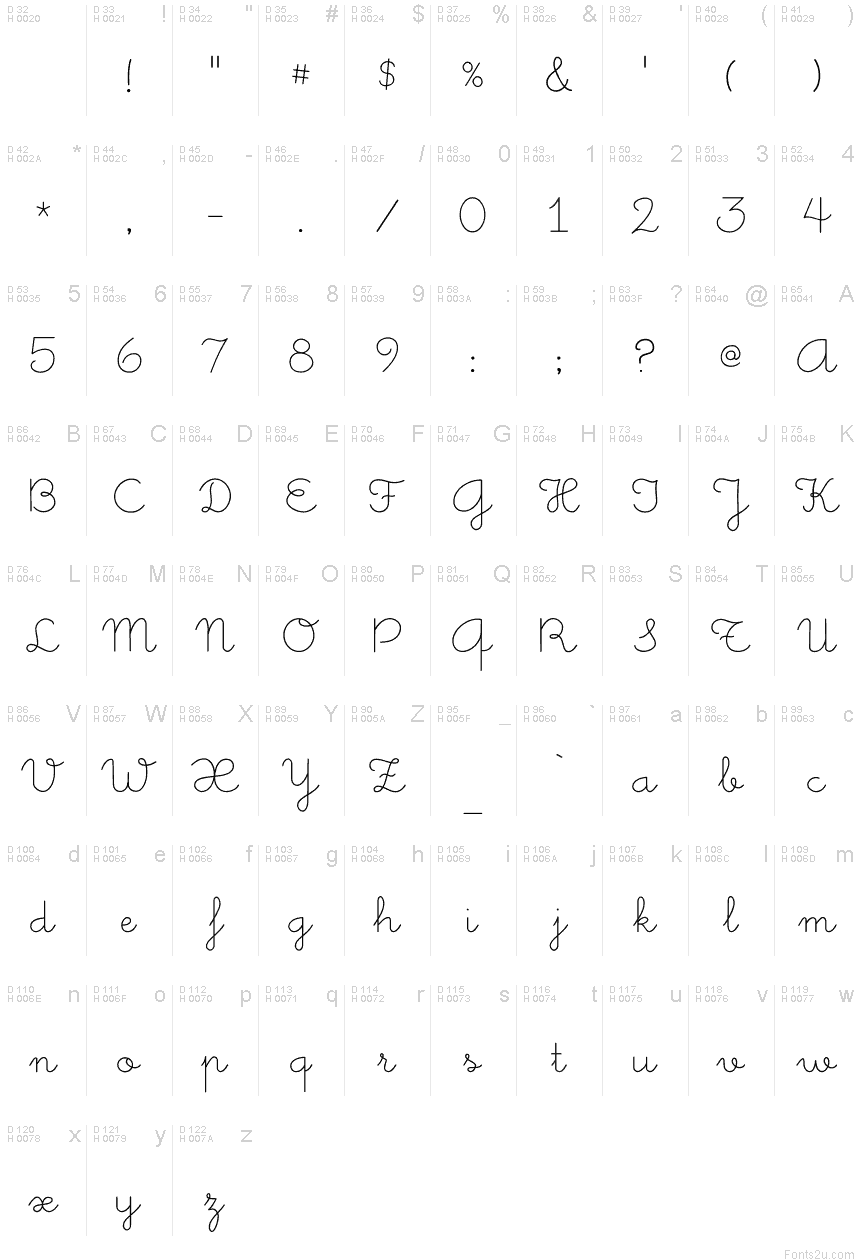
Little Days
Little Days font by West Wind Fonts is a free handwritten font with a relaxed, single-line script and a few looped, airy letterforms. The strokes stay simple and open, with rounded shapes, narrow joins, and a long looping first character that gives the design its casual handwritten character.
Little Days works well for invitations, quote cards, branding, packaging, stationery, and social graphics because it looks personal without feeling cluttered. This free font brings a quick hand-drawn note to short text, especially when you want something informal and neat enough for small decorative details.